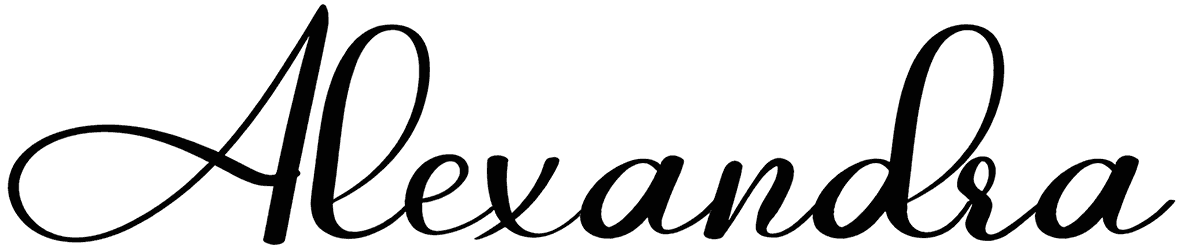
Alexandra Font
With elegant and minimal character designs, the Alexandra font brings a modern look to your texts! You can use it for any branding logo, fashion book, channel banners, movie titles, and business cards. This calligraphy font has semi-bold characters and can give a cool and intense makeover to your texts with its curly and continuous lettering style.
Alexandra is a beautiful and refined script font. It has a classy, elegant, and modern look that can be used for logos, branding, invitations, stationery, wedding designs, social media posts, and much more!